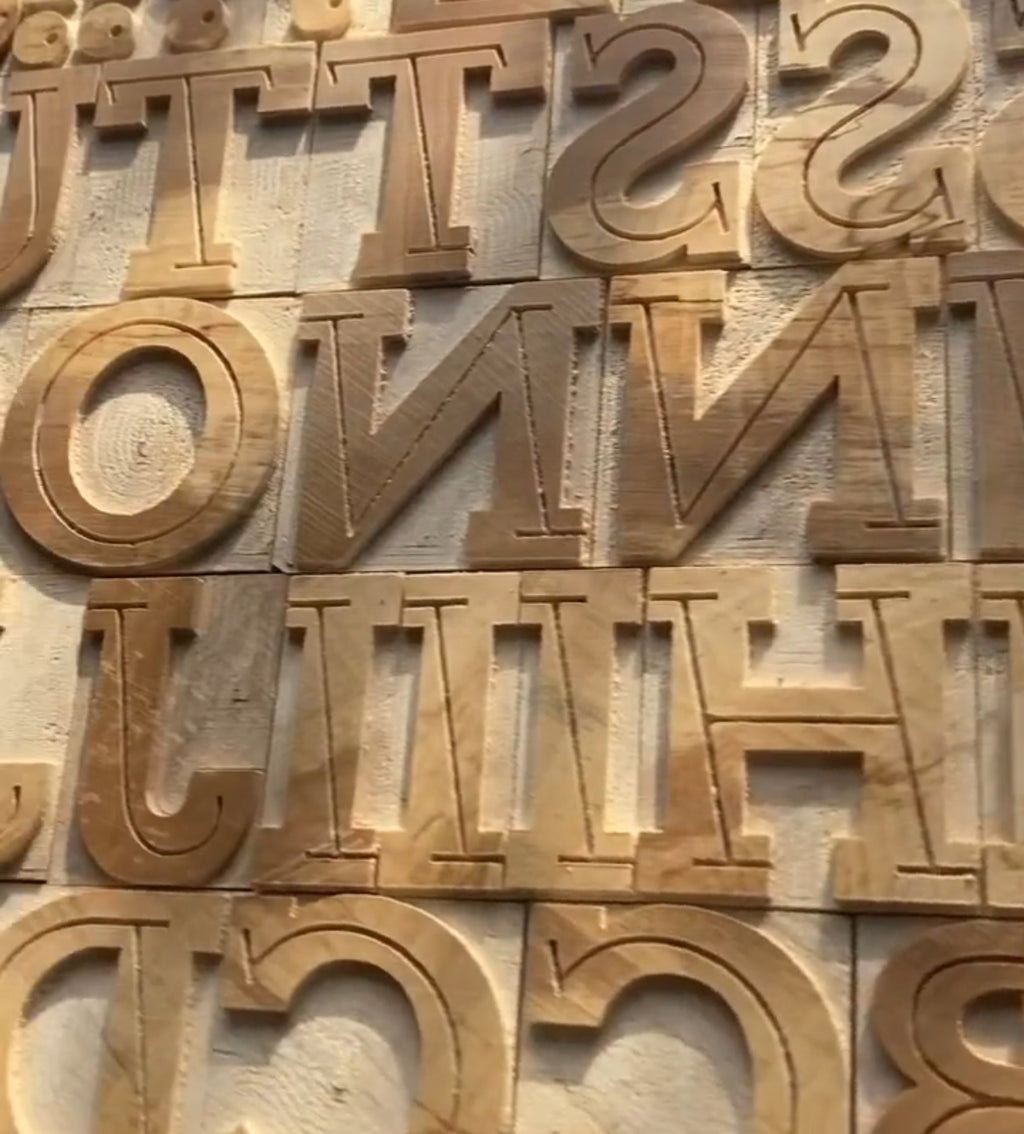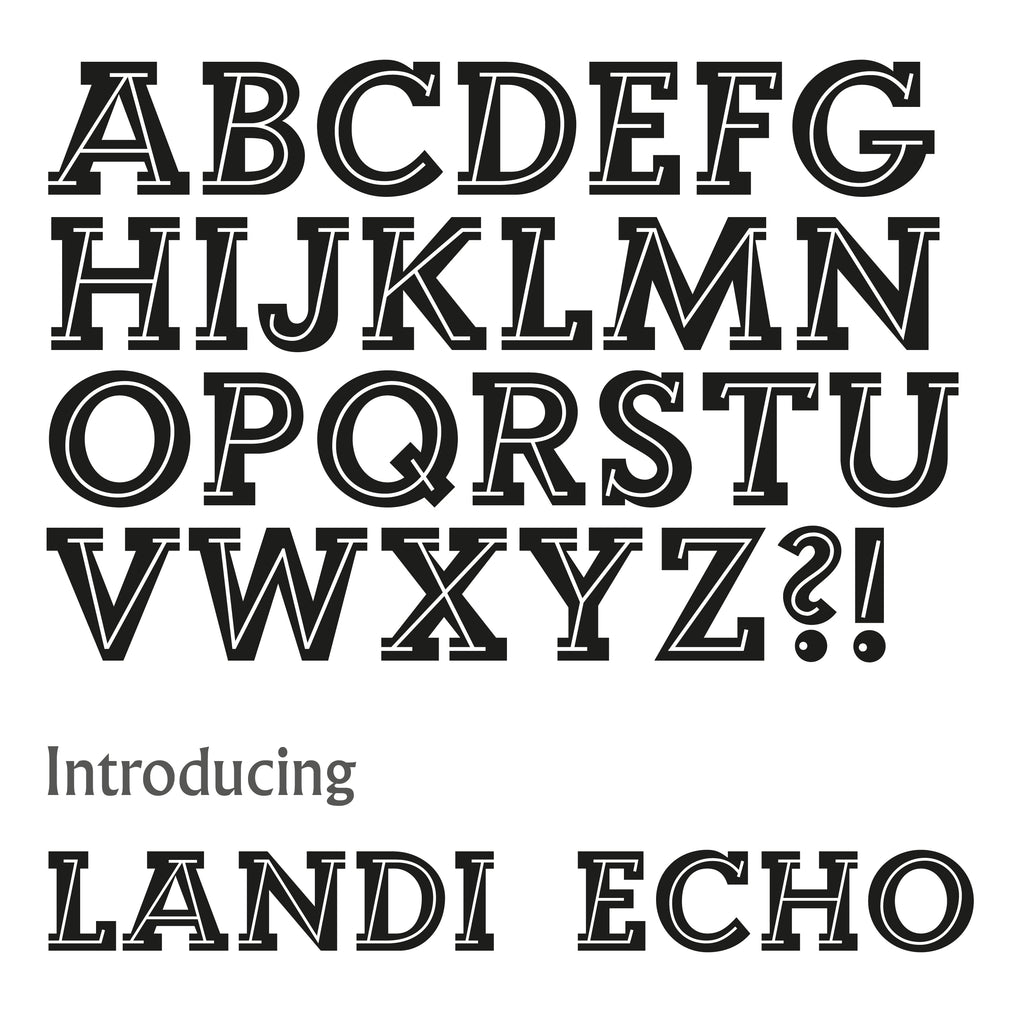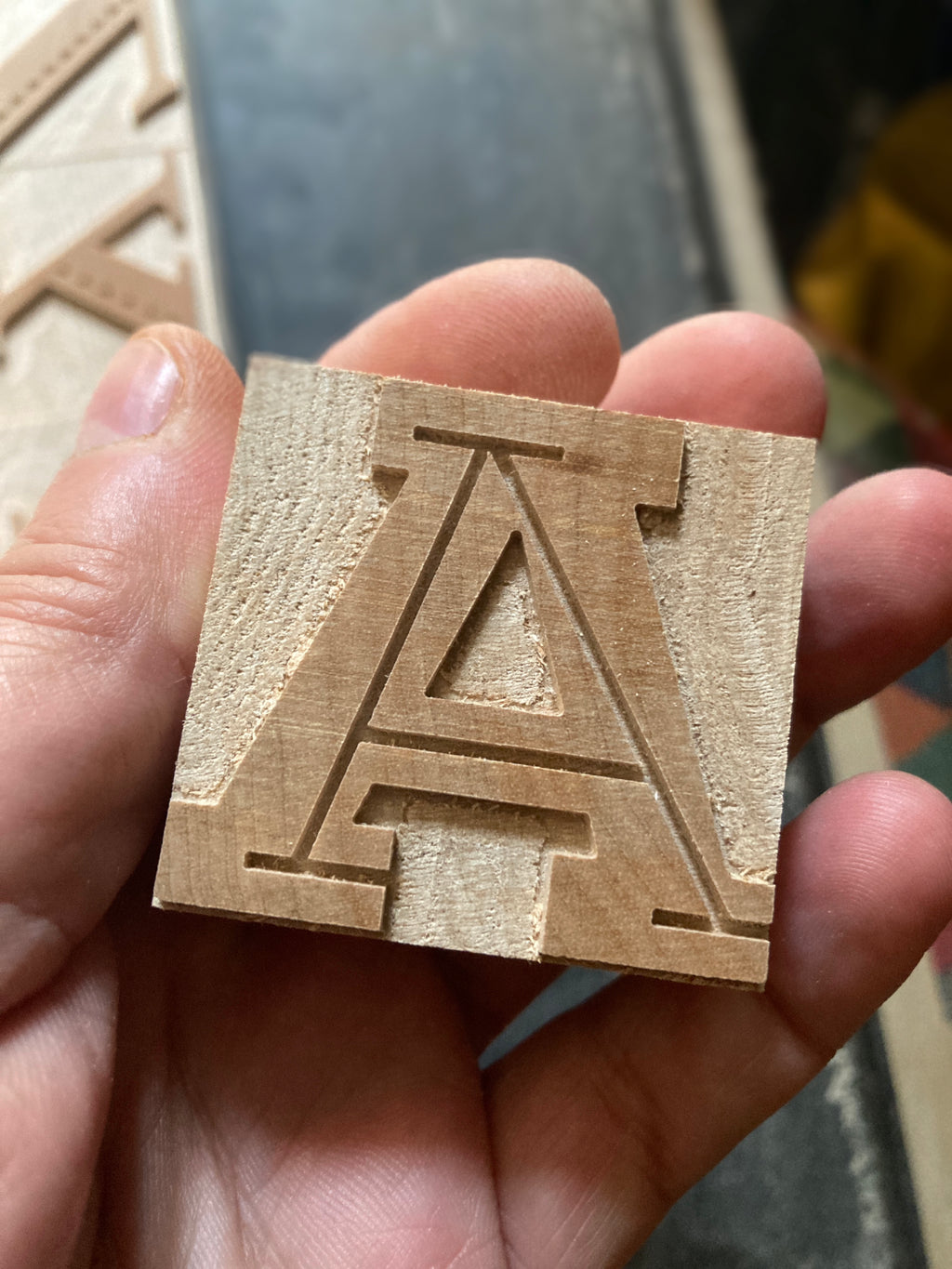
'Landi Echo' letterpress woodtype typeface
Introducing 'Landi Echo' - a decorative all-caps typeface using an oblique thin as inline to a bold upright. Designed in 1939 by Alessandro Butti at the Italian Nebiolo Foundry.
10 line (42.3mm) versions cut from end grain English hardwood using a combination of modern CNC technology and traditional hand woodworking tools (including an original printers saw), made to English type-high (0.918in or 23.3mm) within plus or minus 0.1mm tolerance, sealed with shellac and hand finished with a traditional polished printing surface.